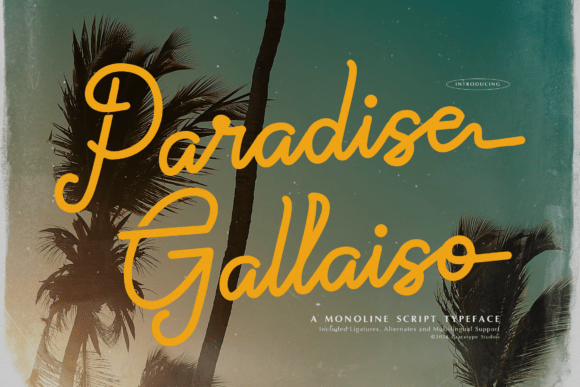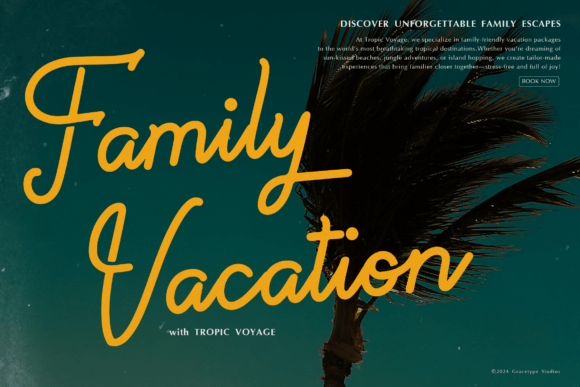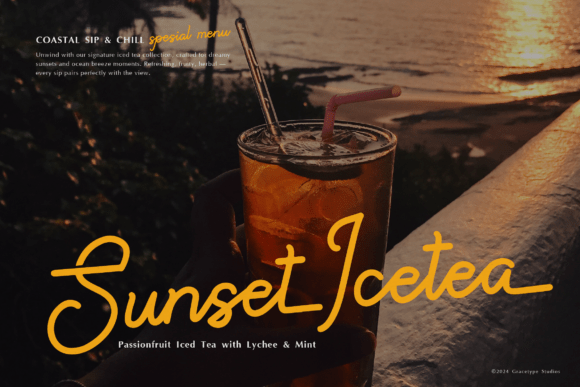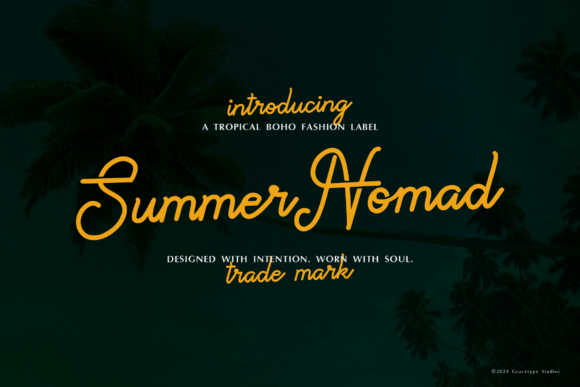
Paradise Gallaiso Font: Boho Script for Summer Branding & Logos
About the Paradise Gallaiso Font
Meet Paradise Gallaiso Font, a stunning font that brings a touch of elegance and professionalism to any design. Paradise Gallaiso is a breezy monoline script font that captures the warmth of summer days and handwritten elegance. With its smooth, flowing lines and nostalgic charm, this font is perfect for beach-themed designs, travel branding, boho logos, and creative content. Comes with ligatures and alternates to enhance your layout with ease and personality.
Paradise Gallaiso excels in headline use, short-form text on packaging, and branding applications where a touch of casual elegance is desired. Its flowing nature makes it unsuitable for body text or UI elements requiring high readability. Avoid using it for long paragraphs or dense blocks of information.
The font’s personality is best described as effortlessly elegant and friendly. It projects a sense of warmth and approachability. Consider pairing it with a clean sans-serif like Lato or Montserrat for a balanced contrast, or a classic serif such as Playfair Display for a more traditional feel. Using a geometric sans-serif adds a modern touch.
For a playful variation, a simple handwritten sans-serif could work well. Avoid pairing it with other script fonts, as this may create visual clutter.
Paradise Gallaiso Font Usage Examples
Paradise Gallaiso Font Example